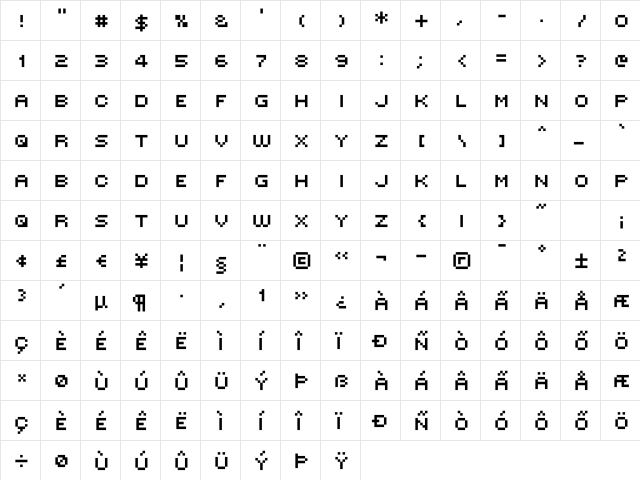
Mini 7 Tight Regular
Design Context for Mini 7 Tight Typeface
Mini 7 Tight takes a measured approach to typography — its balanced proportions and neutral character make it a reliable workhorse for both digital and print work.